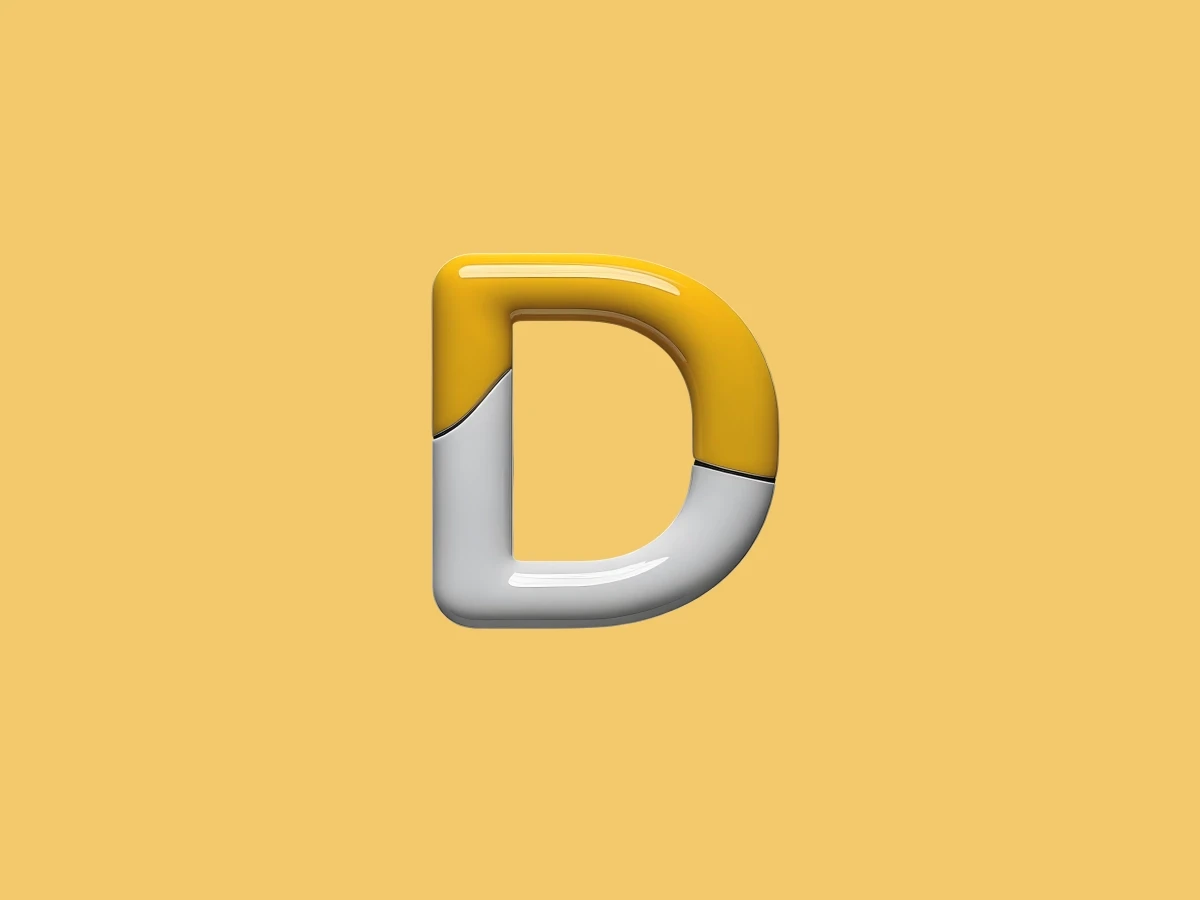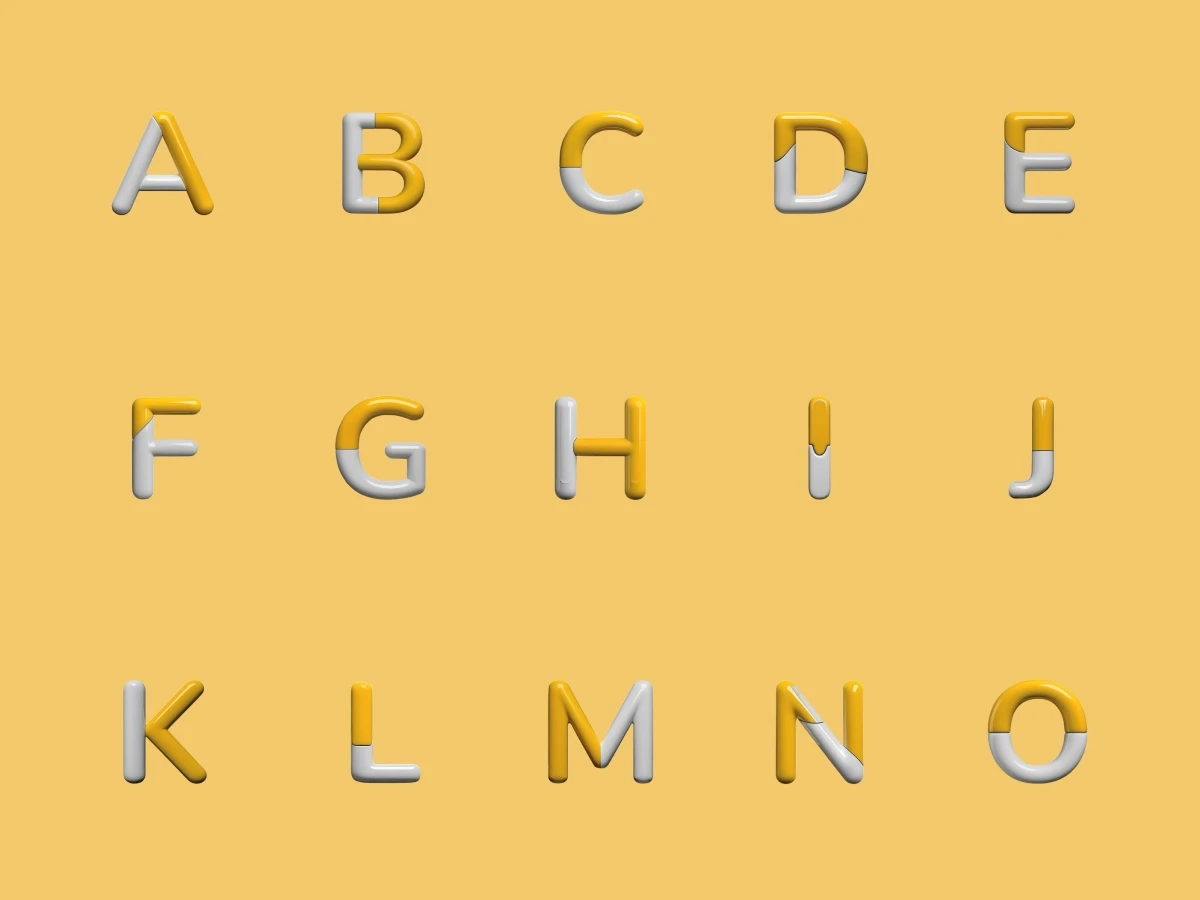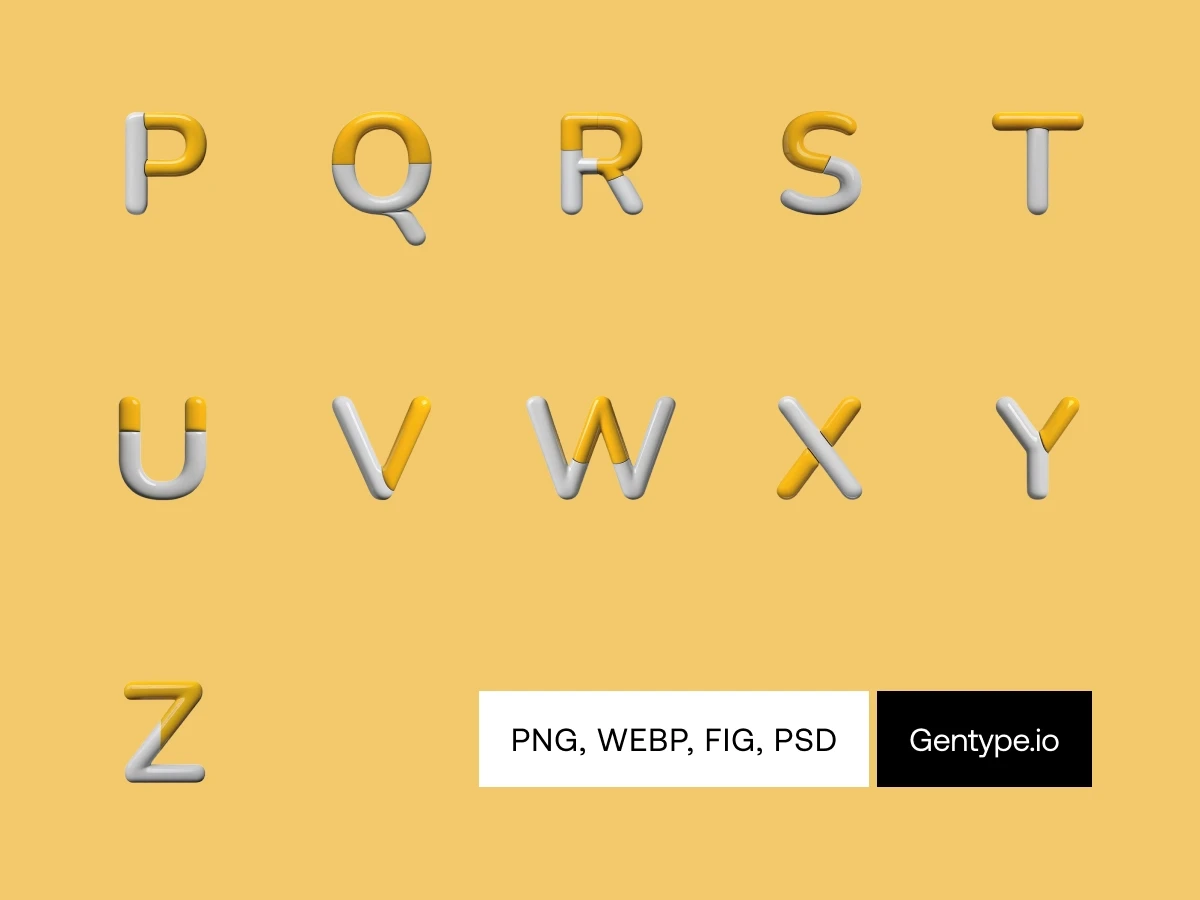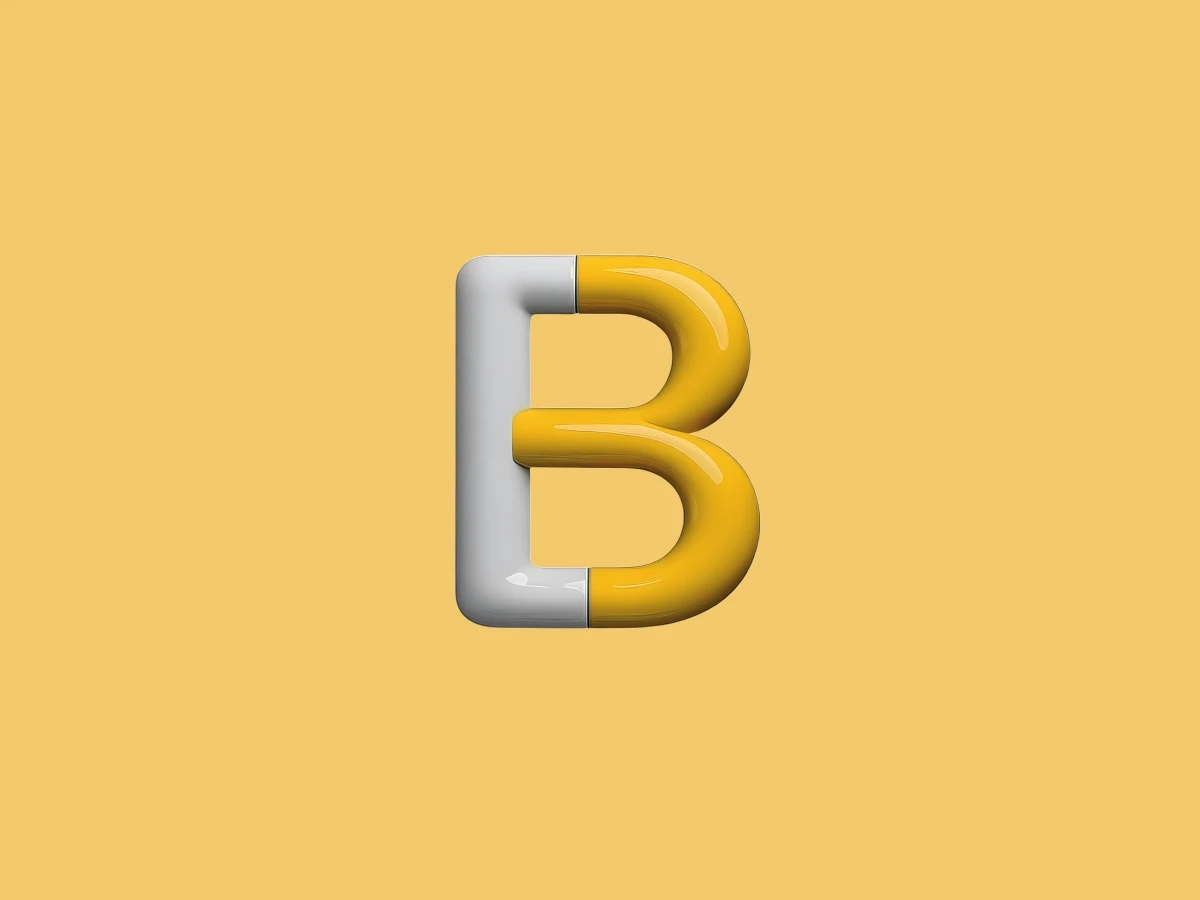
Idea
About the theme
This playful theme is your nod to a brand that blends cool drinkware, notebooks, socks, and printing paints into one package. While I can’t name names, this theme will bring you just a sip closer to their vibe. Just a heads-up – this mug isn’t exactly liquid-proof. It might leak, but it sure impresses!